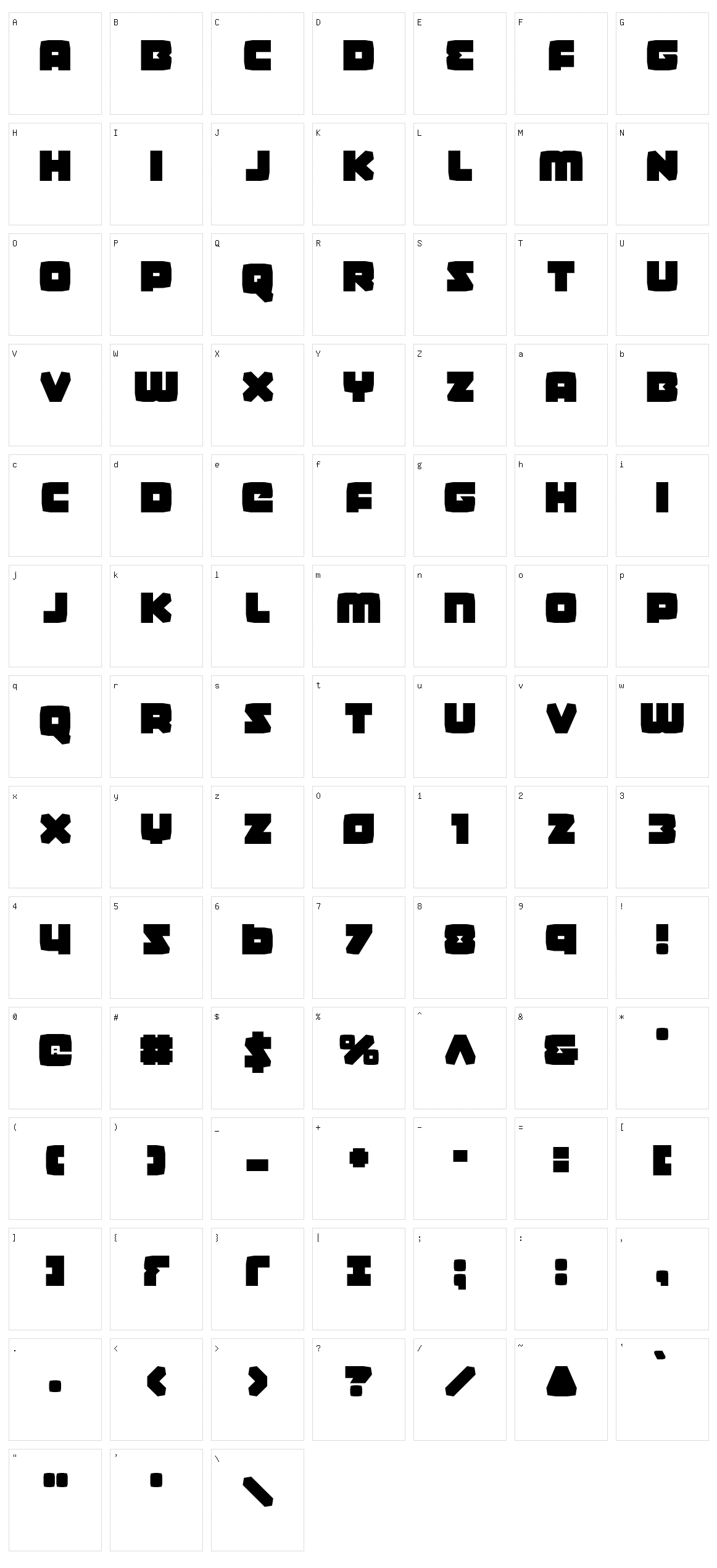
Gamer Spot
This font comes with the following 18 versions: Regular, Italic, Semi-Italic, Condensed, Condensed Italic, Expanded, Expanded Italic, 3D, 3D Italic, Gradient, Gradient Italic, Halftone, Halftone Italic, Rotated, Rotalic, Super-Italic, Leftalic and Semi-Leftalic.